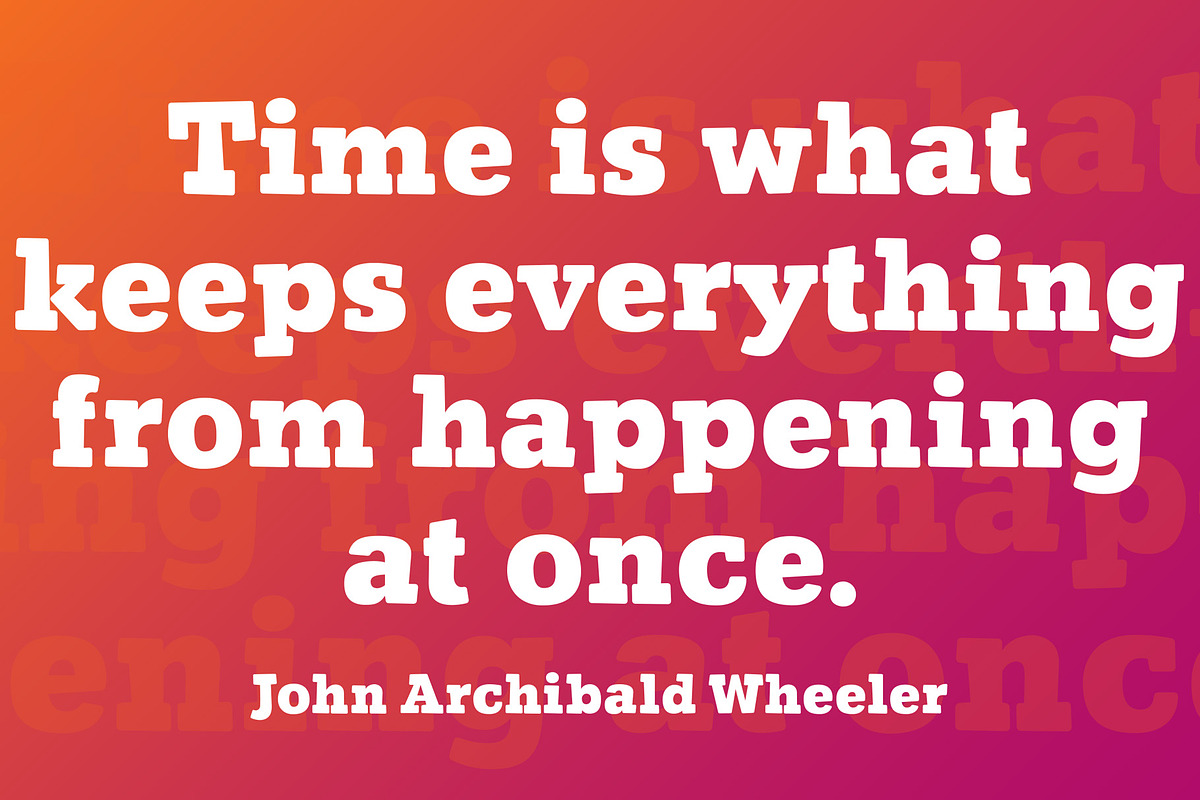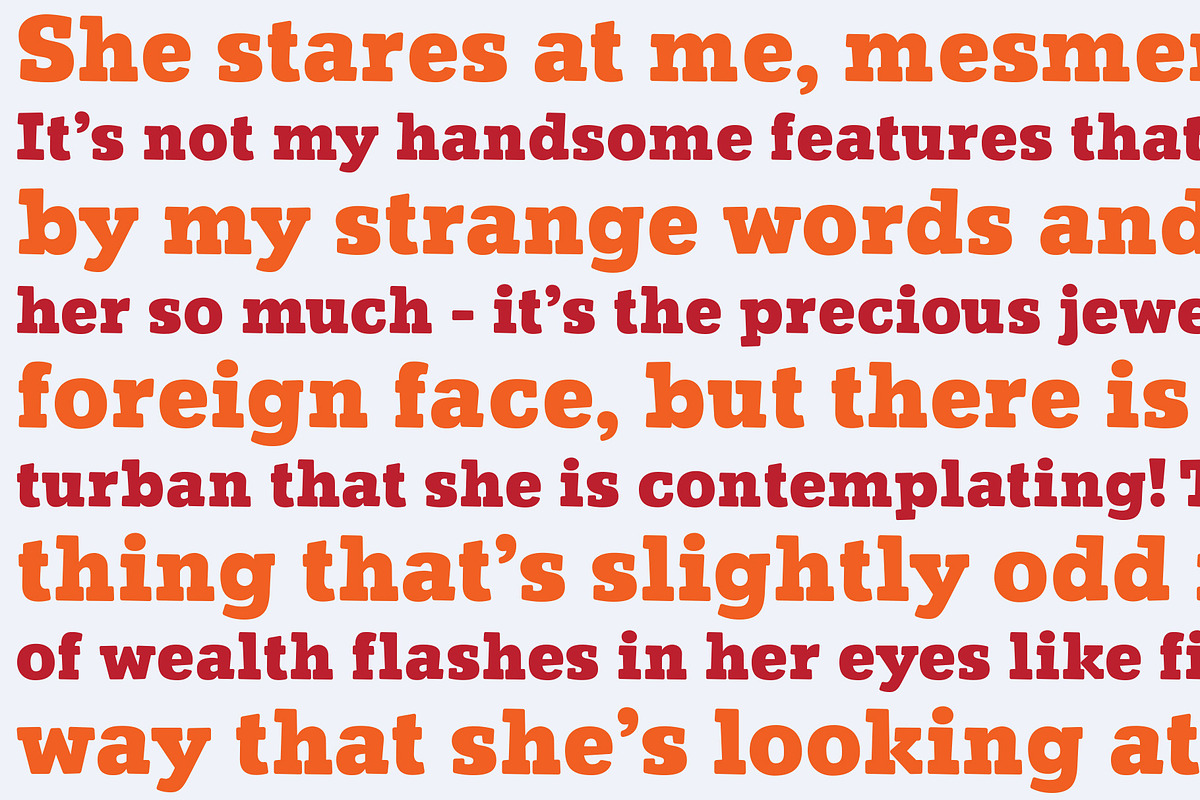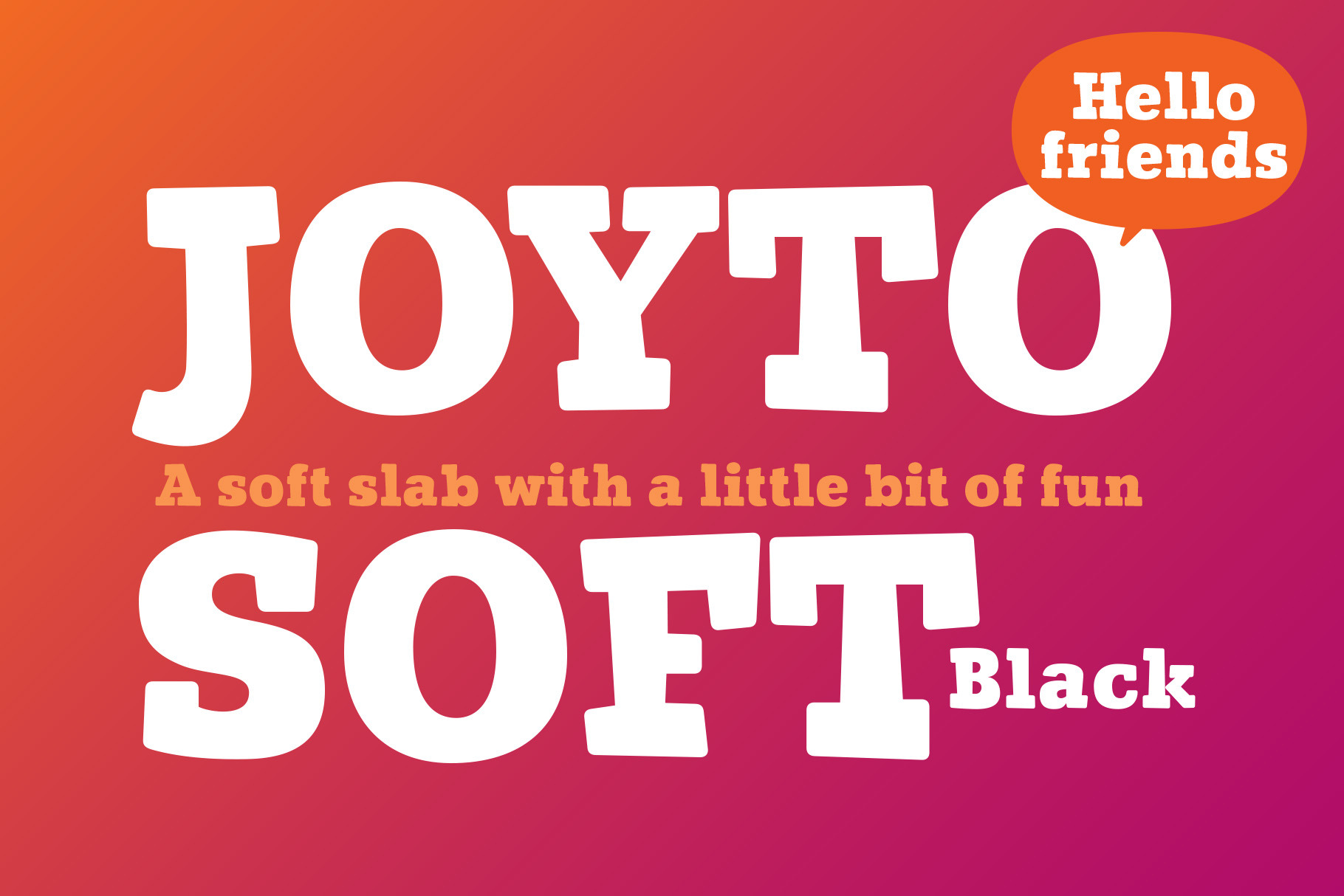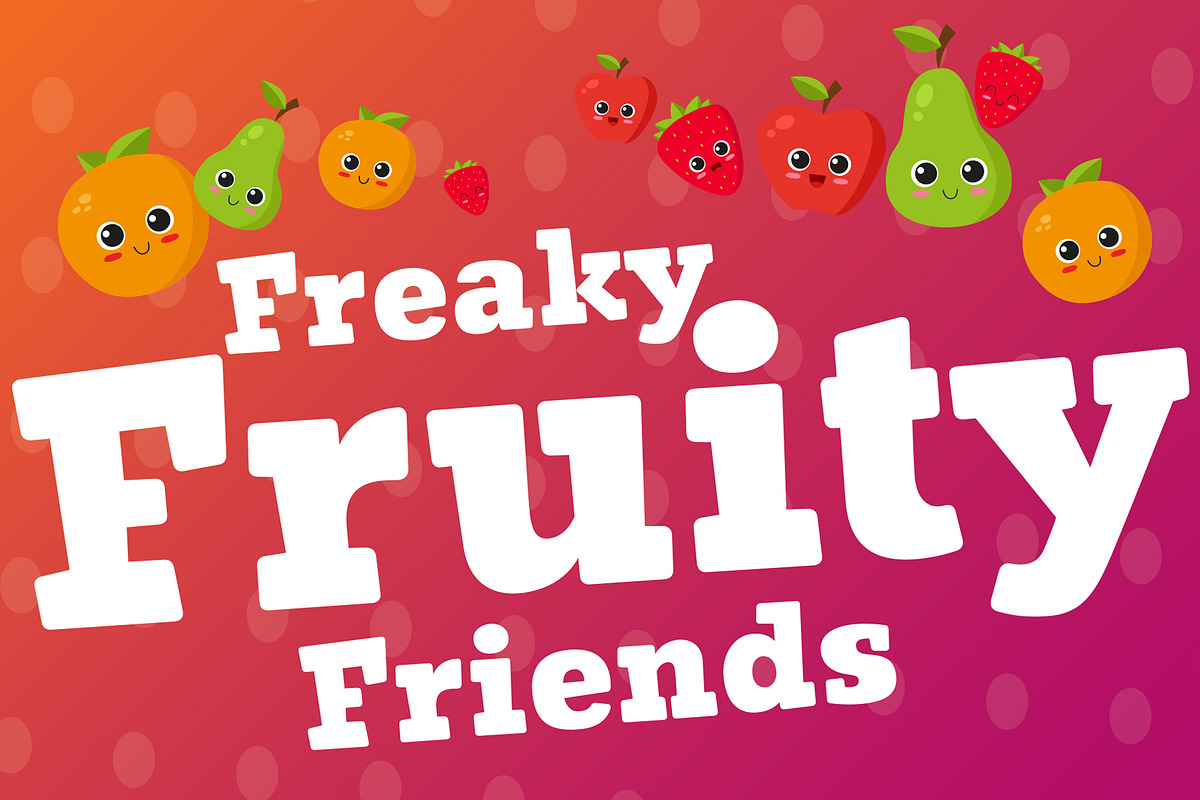
Joyto Soft Black font
Joyto Soft Black is a soft edged slab serif font. With soft edges and an uneven thickness, it has a quirky, warm and fun character while retaining legibility. It is well suited for display, branding, packaging, restaurant menus, children’s products & books and much more.